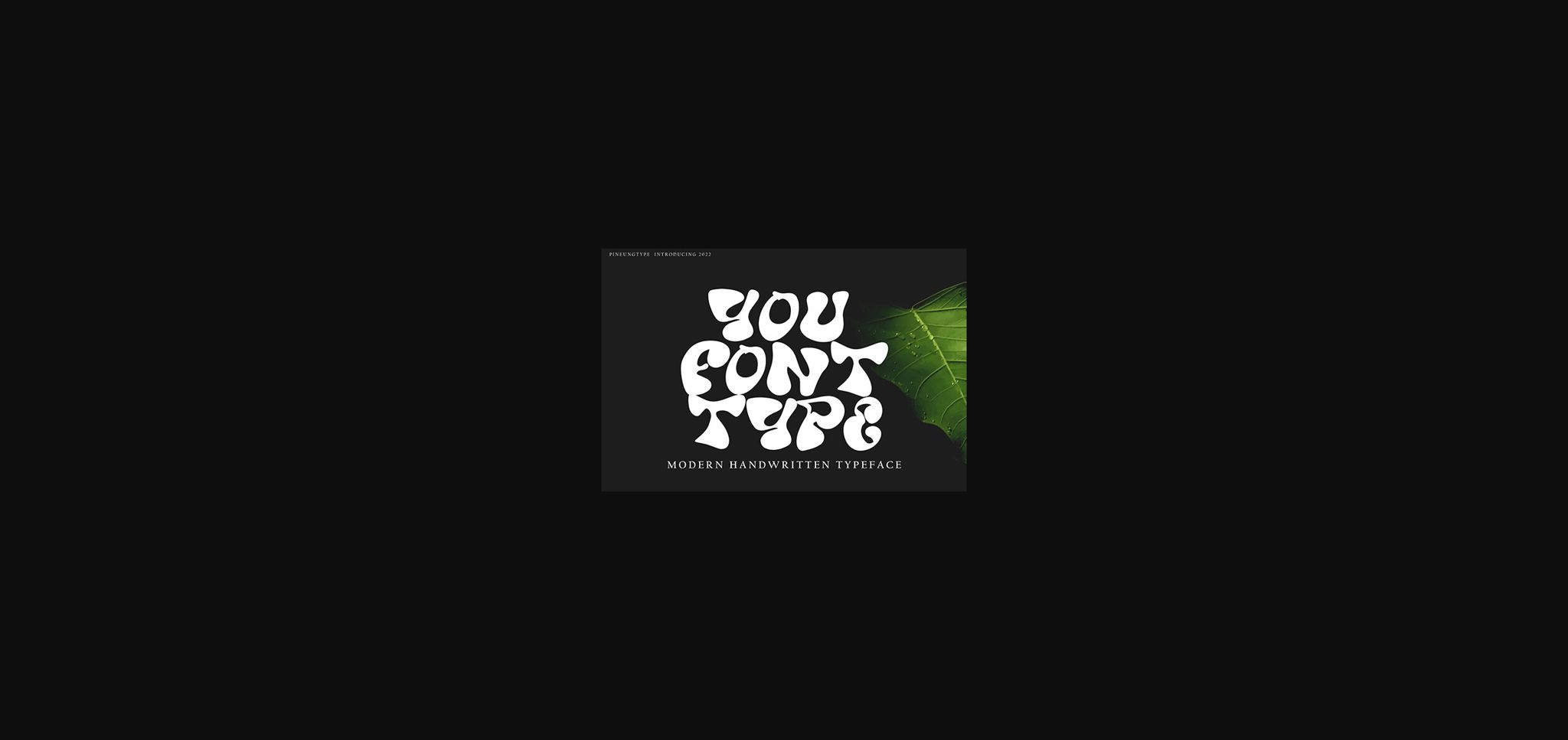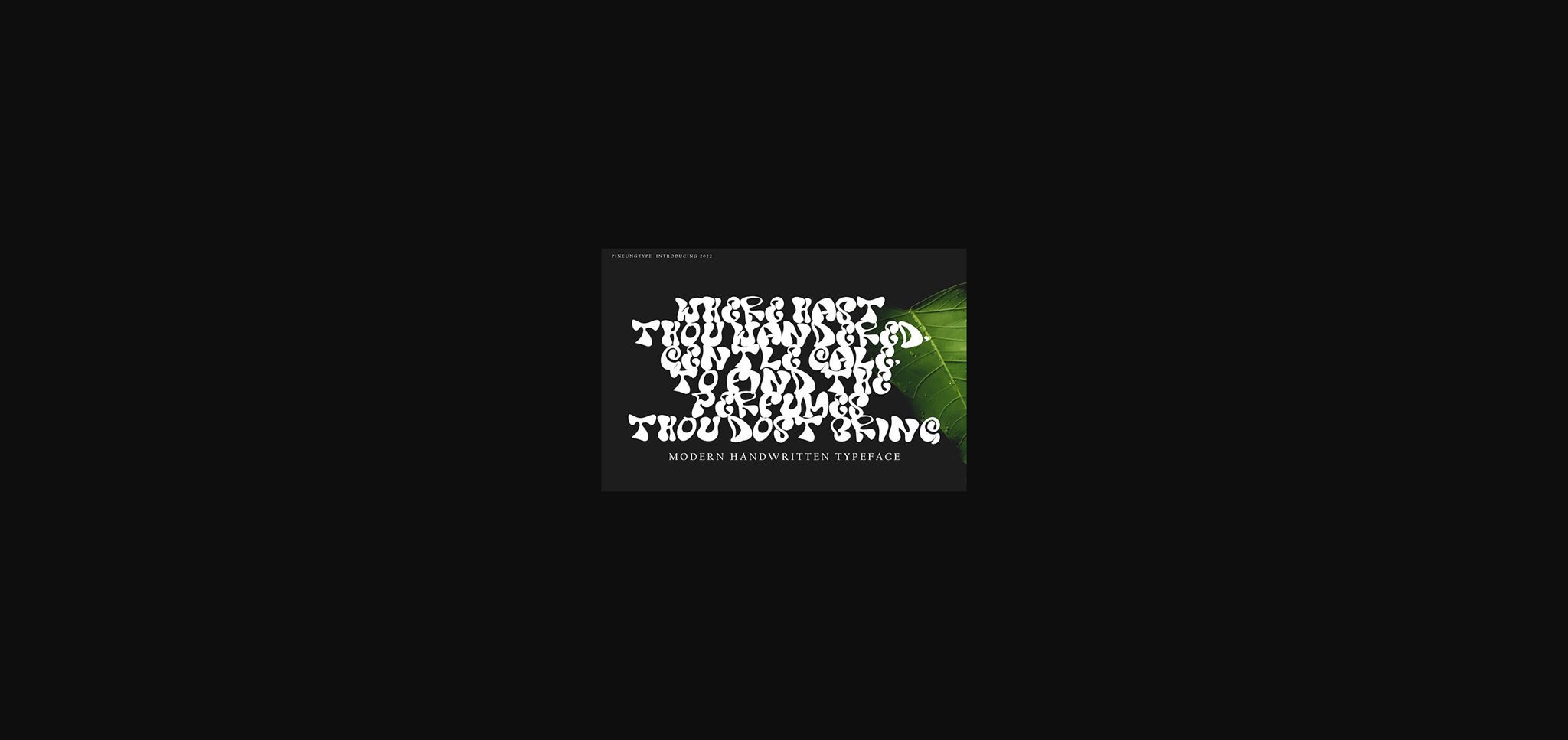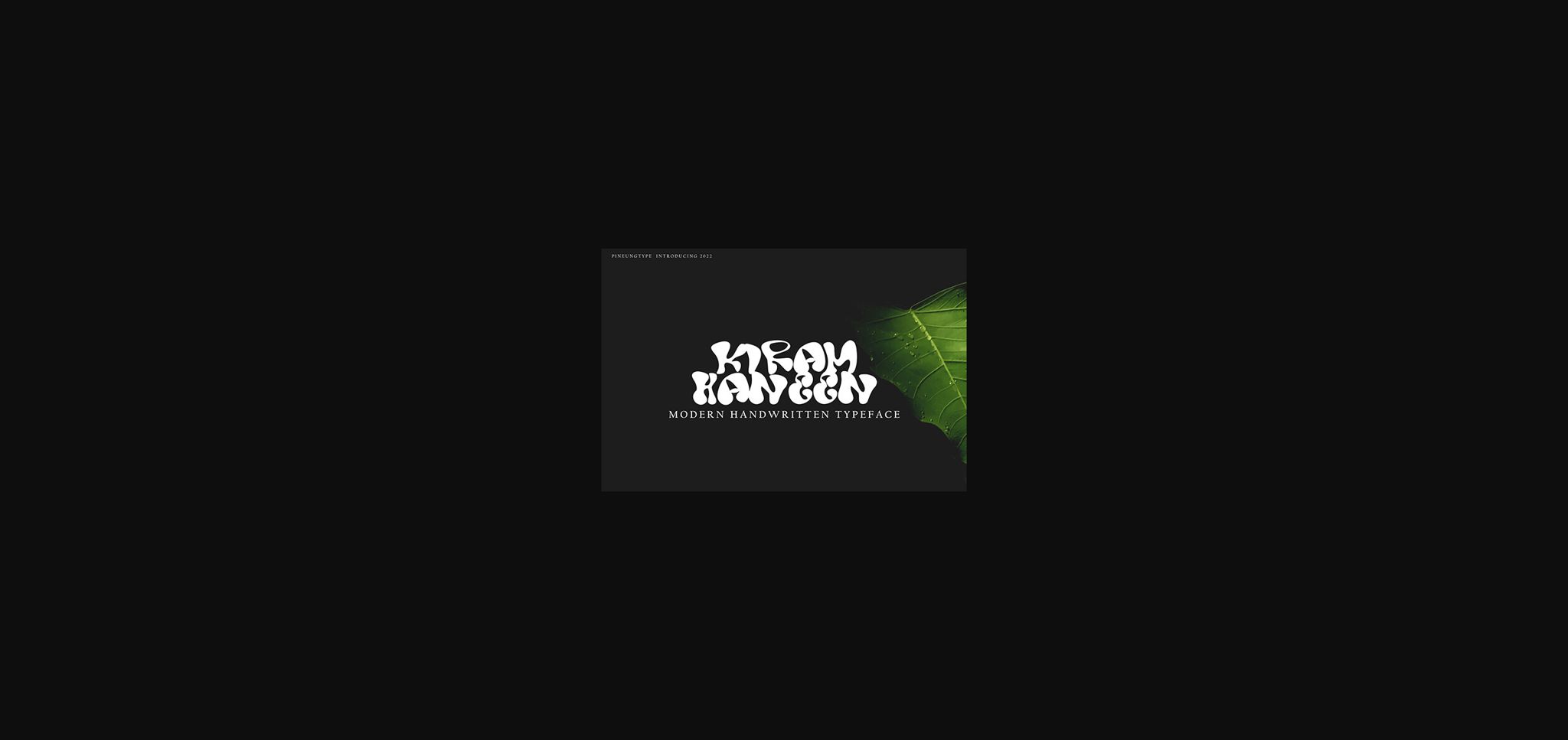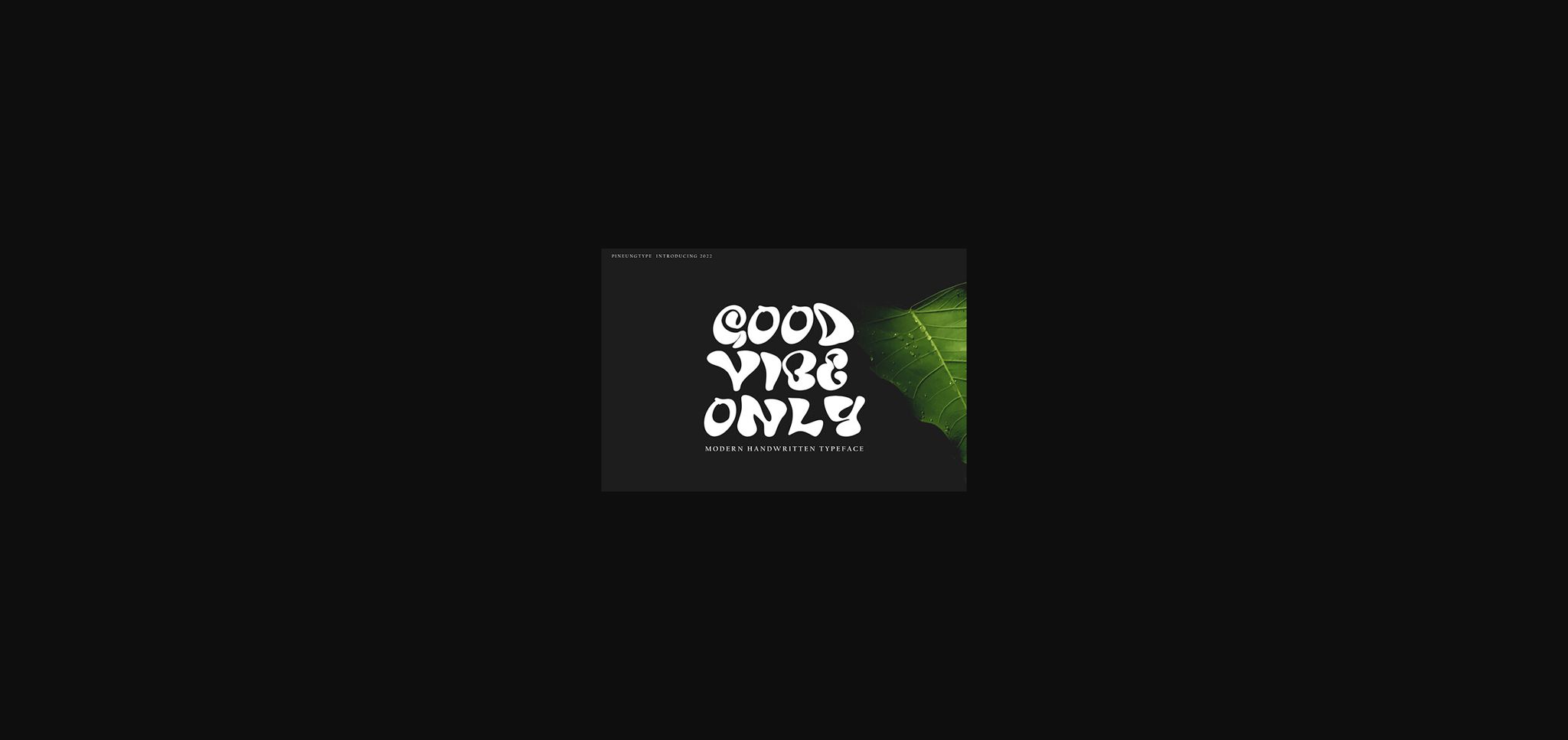
You Fontype Font
About You Fontype Font
You FonType is a captivating and playful display font that adds a touch of whimsy and creativity to your designs. Its curvy, flowing characters bring a unique and eye-catching flair to any project, making it perfect for titles, logos, and artistic expressions.